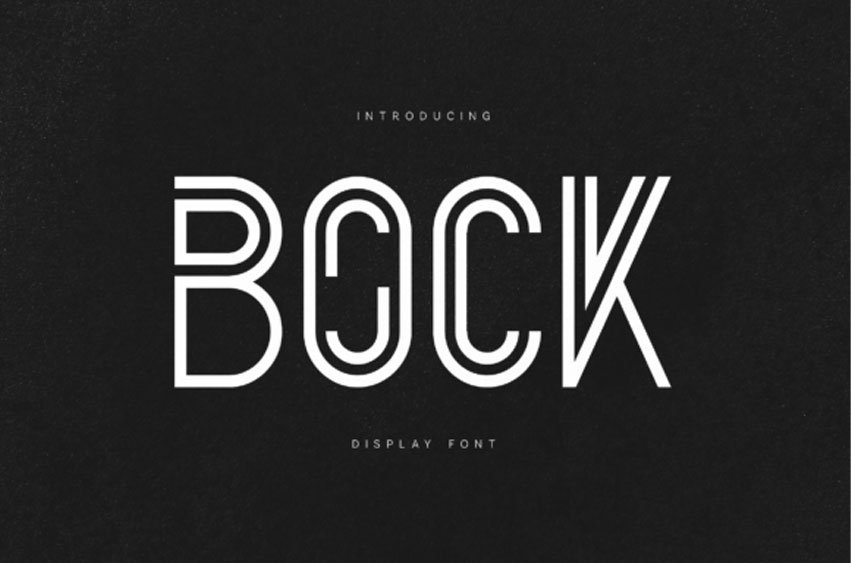
Bock Font is a bold, modern outline display font designed for strong visual impact and contemporary branding.
Built with clean geometric forms and consistent double-line strokes, Bock delivers a confident, futuristic aesthetic that works perfectly for posters, logos, headlines, packaging, album covers, and editorial design.
This font balances precision and personality, making it ideal for designers looking to create striking typography with a modern edge. Its outlined construction ensures high contrast on dark or textured backgrounds while remaining legible and distinctive.
The Bock typeface commands attention in e-sports branding, tech logos, and modern architectural projects. Because of its complex internal lines, the Bock font works best at larger sizes for titles and hero sections. To enhance the design, pair it with a very simple, wide-spaced minimalist sans serif for secondary text. It’s an excellent choice for a cyberpunk aesthetic, luxury streetwear labels, or any project that requires a “technical” yet stylish look.